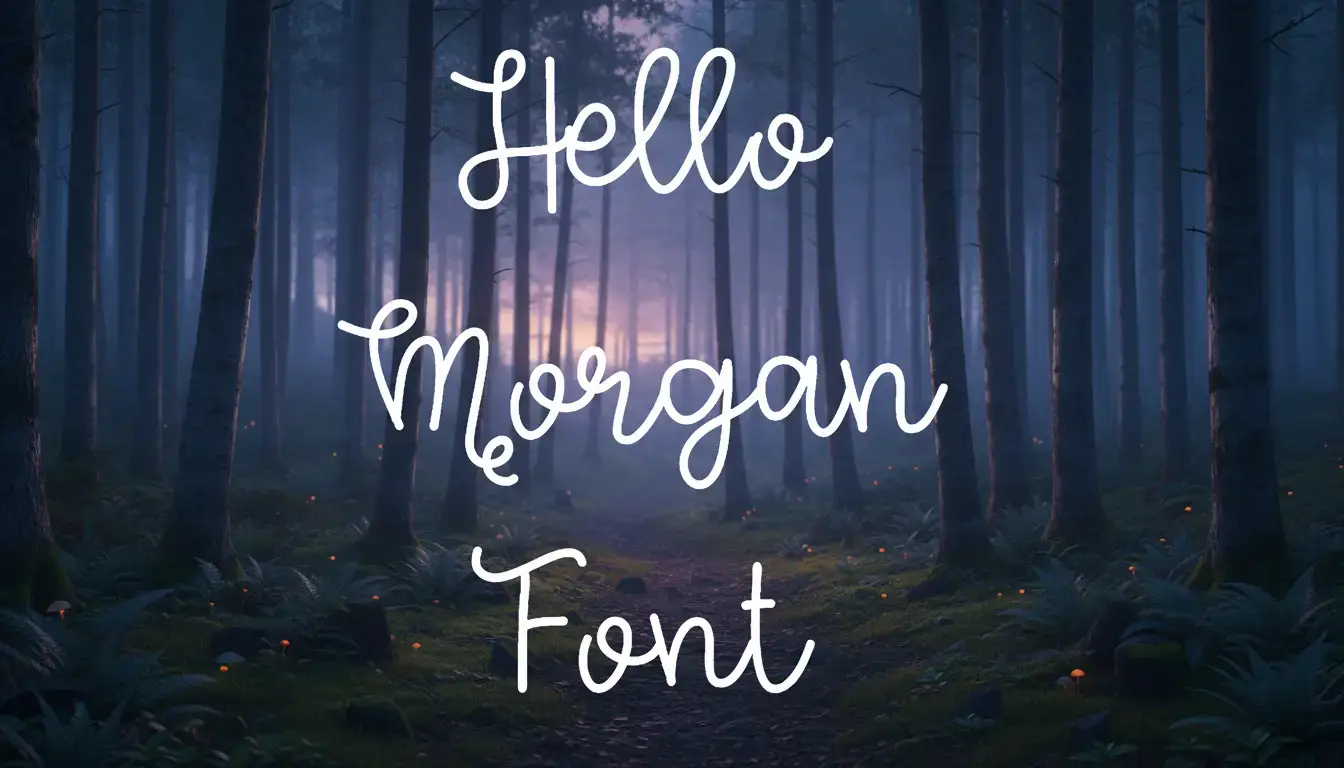
Hello Morgan Font
Hello Morgan
Hello Morgan is a fancy font. It's a decorative display font with plenty of personality, made to grab attention. It's a free download, and you can try it with your own text in the preview above first.
With complete upper and lowercase letters and all ten digits, Hello Morgan is ready for real wording, not just a single headline. Everyday marks like &, !, ? and @ are there too. Thanks to its accented letters, it also works for Spanish, French, German, Portuguese and Italian, not just English.
Hello Morgan is a natural fit for posters, logos and eye-catching headlines. Use it for one standout word or headline and let simpler fonts handle the rest.
Yes. Hello Morgan includes the accented letters needed for Spanish, French, German, Portuguese and Italian, so it works for more than just English.